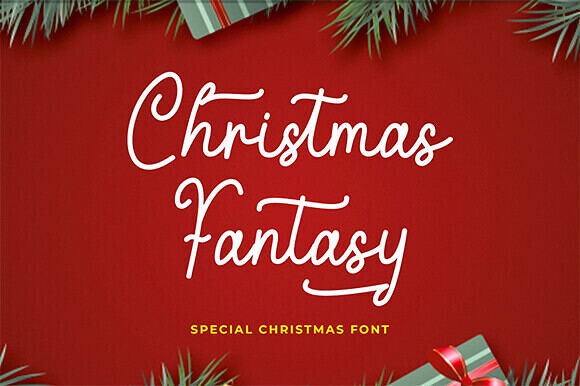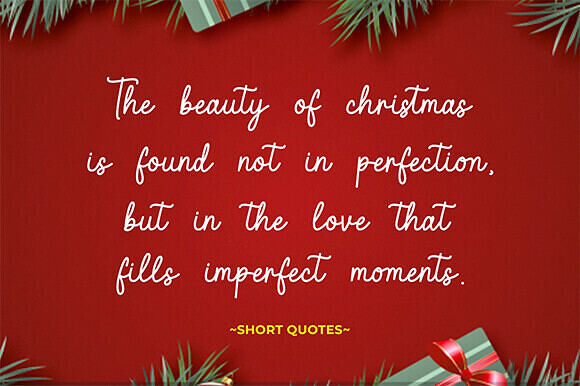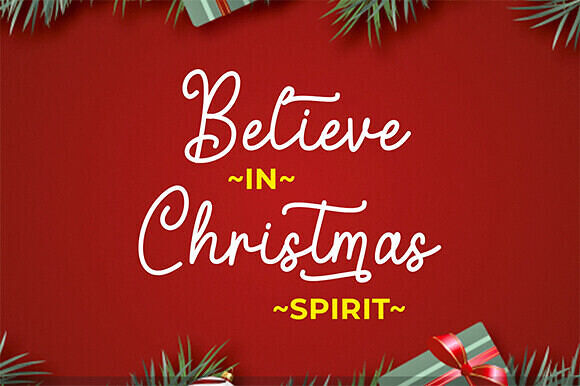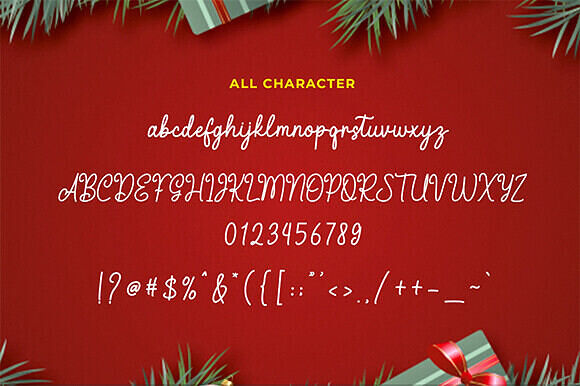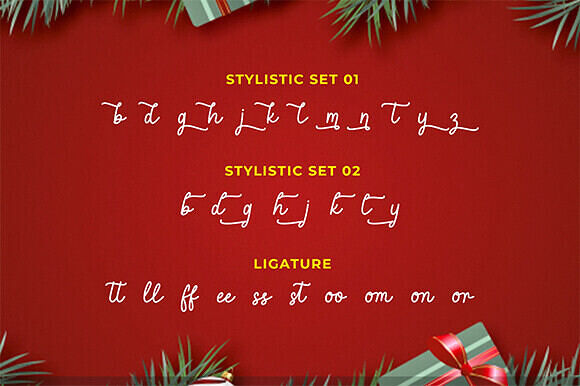
Dive into the festive spirit with the beautifully handwritten Christmas Fantasy font, a smooth, flowing script typeface that perfectly captures the joy and wonder of the holiday season.
The Christmas Fantasy font exudes a warm, welcoming vibe, featuring elegant loops and delightful swashes that give it a whimsical, authentic hand-lettered feel. This script is designed for maximum impact as a display font, ensuring your seasonal messages stand out with charm and grace. Its unique, connected script style makes it an instant classic for any holiday-themed project.